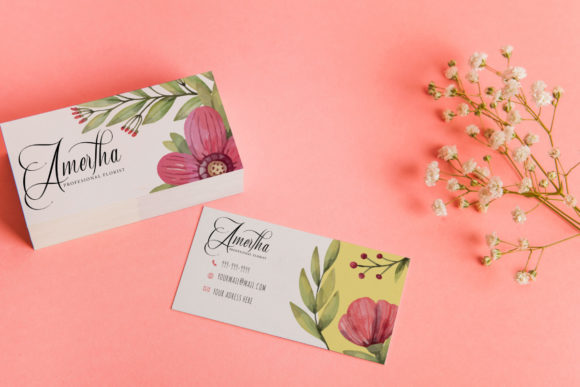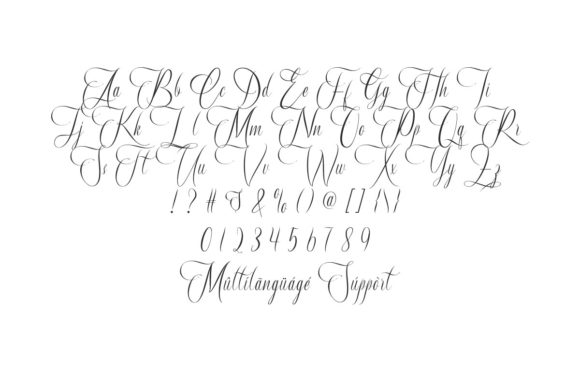
Calianda Font
db-ku.com - Script & Handwritten -- Calianda is an awesome calligraphic font which has luxurious and modern style. This font is PUA encoded which means you can access all of the glyphs and swashes with ease!